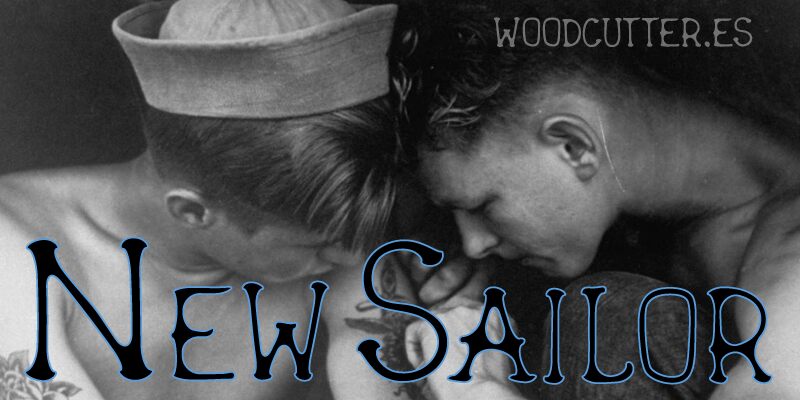
New Sailor
New Sailor is a captivating display font that evokes the charm and whimsy of vintage maritime aesthetics. Designed by Woodcutter Manero, this typeface boasts a delightfully retro flair, with its rounded, playful letterforms and playful serifs. The bold, striking appearance of New Sailor makes it an ideal choice for a range of design applications, from promotional materials and branding to editorial layouts and packaging. Its versatile nature allows it to seamlessly integrate with both modern and traditional design styles, lending a touch of timeless elegance to any project.
This font's distinctive character and timeless appeal make it a standout choice for designers seeking to capture a sense of nostalgia and adventure in their work. Whether you're crafting a nautical-themed logo, designing a vintage-inspired event poster, or curating a rustic editorial layout, New Sailor's unique personality will undoubtedly leave a lasting impression.